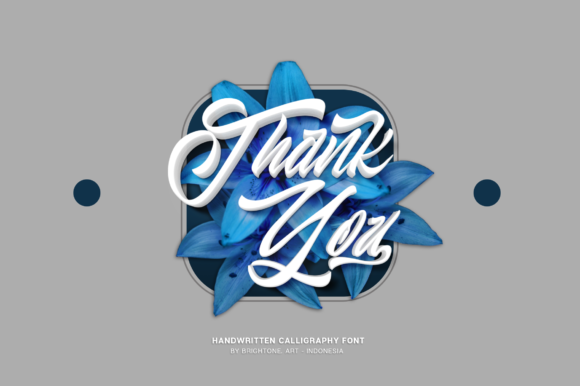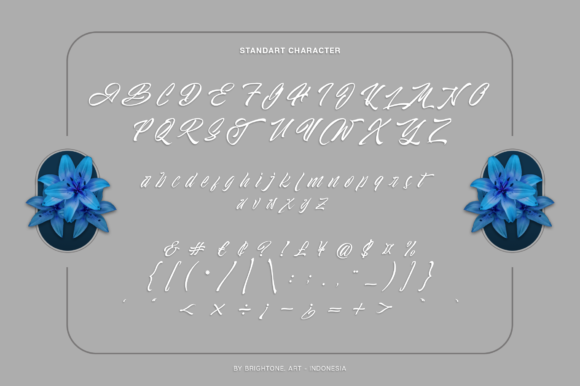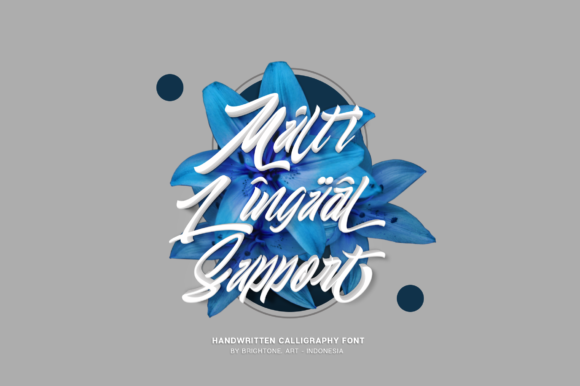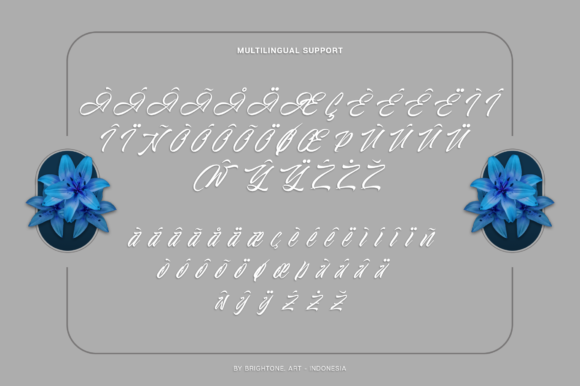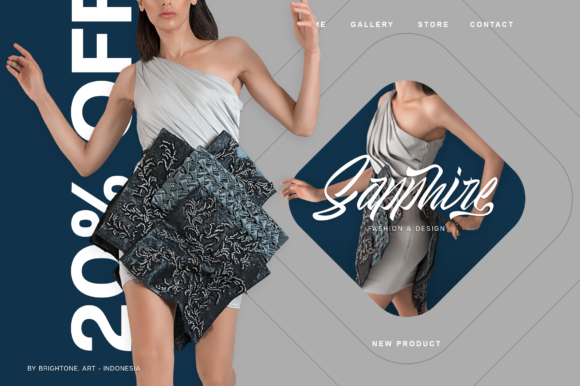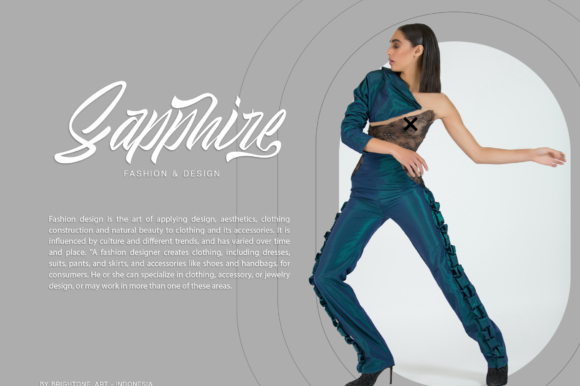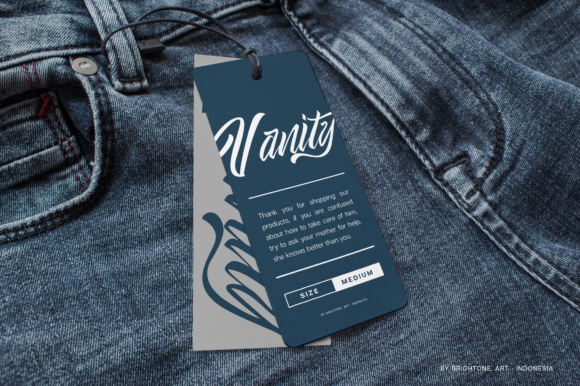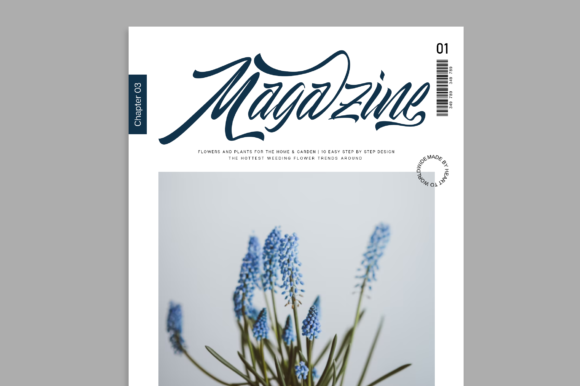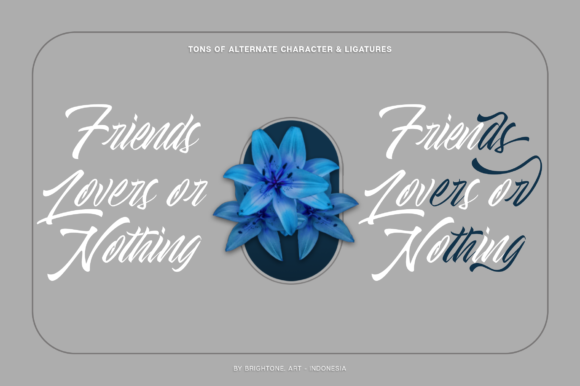
Atlantic Extended Font
About Atlantic Extended Font
Atlantic Extended is a beautiful script font that looks exquisite and perfectly cursive.
This font will be a good use to branding your brand, t-shirt design, lettering design, logo, and it also looks great when combined with your product for Instagram posts or Instagram stories.